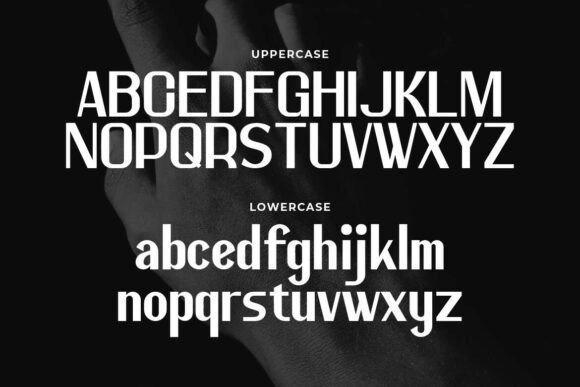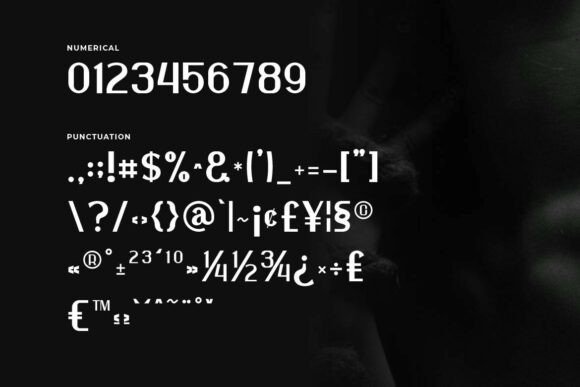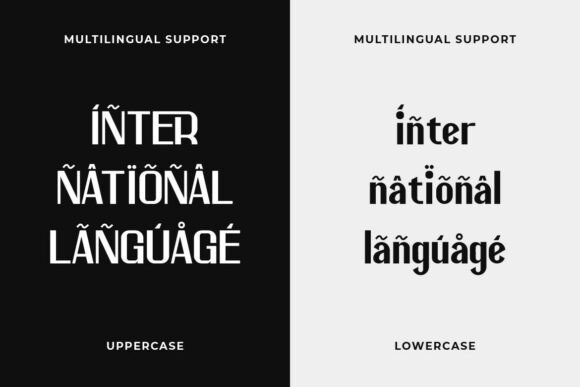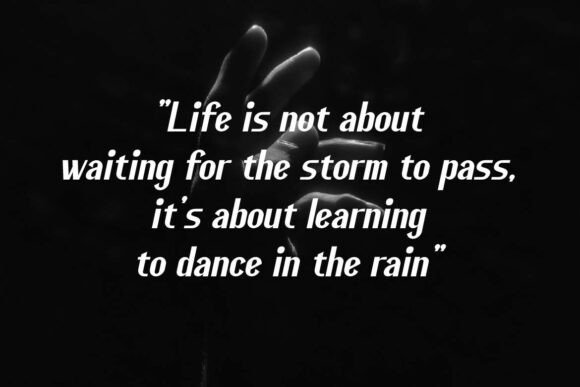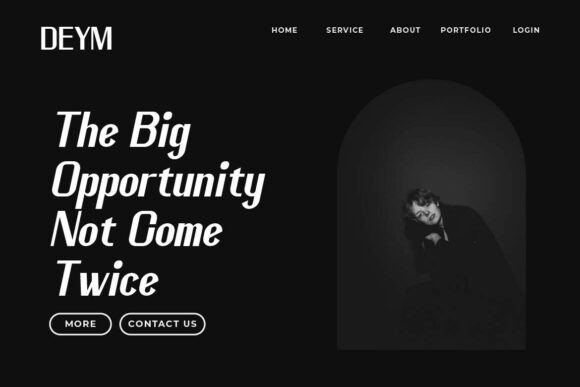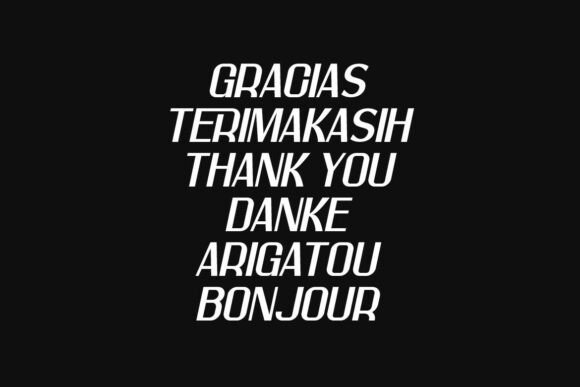
Unlock the Power of Modern Minimalism with the Cemmani Pro Font
Have you ever stared at a blank design canvas, waiting for the perfect font to bring your creative vision to life? You’re not alone. We’ve all been there – searching for the perfect combination of style and substance to make our designs truly stand out. That’s where the Cemmani Pro Font comes in – a game-changing sans serif typeface designed to command attention and elevate your designs to the next level.
This powerful font is more than just a pretty face; it’s a professional-grade tool that’s perfect for complex web design, mobile app interfaces, and corporate branding. With its unique letter shapes and subtle variations between uppercase and lowercase characters, the Cemmani Pro Font adds a touch of personality to your layouts without sacrificing legibility. Whether you’re a seasoned designer or just starting out, this versatile font is sure to become your go-to choice for creating impactful, memorable designs.
Cemmani Pro Font Key Features
- Font Family: Cemmani Pro
- Unique Characteristics: Elegant, modern design with subtle flair and refined details, making it suitable for a wide range of applications, from branding to publishing
Cemmani Pro Font Review
Cemmani Pro is a beautiful and elegant font that can add a touch of sophistication to any design project. ✨ Its sleek lines, curved edges, and refined details make it perfect for creating a premium and luxurious feel.
Here are some of the things that I like about Cemmani Pro:
- Highly legible even at small font sizes, making it suitable for body text and captions.
- Extensive language support, including Latin, Greek, Cyrillic, and many non-Latin scripts.
- Perfect for creating titles, headings, and other display text due to its striking visual appeal.
However, I also found a few limitations:
- It may not be the best choice for informal or casual designs, as it can come across as too formal or elegant.
- The font may not be as versatile as some other fonts, and may not work well in certain design contexts.
Overall, I think Cemmani Pro is a great font for designers who want to add a touch of luxury and sophistication to their projects. While it may have some limitations, its unique design and high legibility make it a valuable addition to any design library. ⚠️
Tips for Getting the Most Out of Cemmani Pro
Here are some tips to help you get the most out of the Cemmani Pro font: 1) Experiment with different font sizes and styles to create visual interest, 2) Use Cemmani Pro in combination with other fonts to create a unique and eye-catching design, 3) Use Cemmani Pro for headings and titles to add a touch of sophistication and elegance.
Cemmani Pro is a versatile font that can be used in a variety of design applications, including:
Alternatives to Cemmani Pro Font
Merrriweather is a classic serif font that is ideal for body text and long-form content. It has a traditional feel and is suitable for books, magazines, and newspapers. Merriweather is similar to Cemmani Pro in its formal and elegant style, but it has a more traditional and classic look.